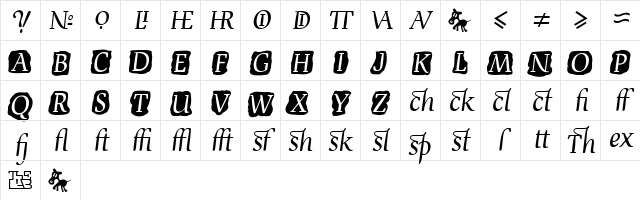
Devroye Extra Regular Free Font
Devroye Extra Regular
Designer: Apostrophe
Design Context for Devroye Extra
Devroye Extra is a composed and adaptable typeface that performs quietly and consistently across a wide range of design contexts.